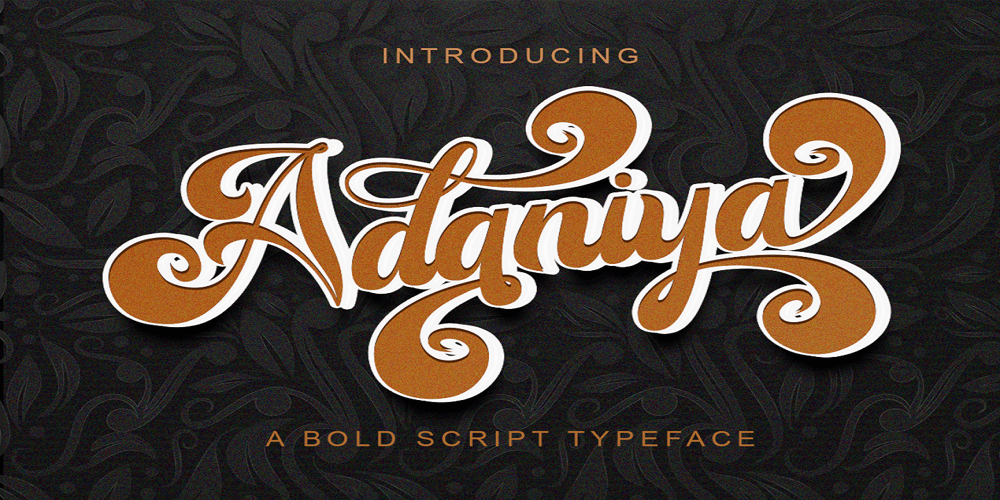
Adaniya Font Family was designed by Saiful Anwar and published by Sealoung. Adaniya contains 1 styles and family package options. Introducing, Adaniya – a standout bold script with a touch of nostalgic look and feel. Inspired by 50s 60s signages, this font made to bring back the good ol’ days. This type of font perfectly made to be applied especially in logo, headline, signage and the other various formal forms such as invitations, labels, logos, magazines, books, greeting / wedding cards, packaging, fashion, make up, stationery, novels, labels or any type of advertising purpose.Features :Uppercase & lowercaseNumbers and punctuationMultilingualAlternates / swashes and ligaturesPUA encodedWe highly recommend using a program that supports OpenType features and Glyphs panels like many of Adobe apps and Corel Draw, so you can see and access all Glyph variations.